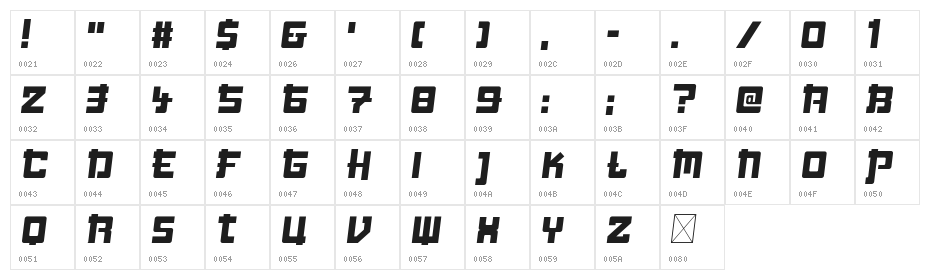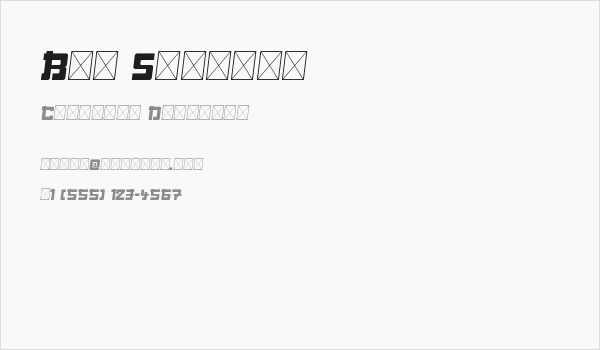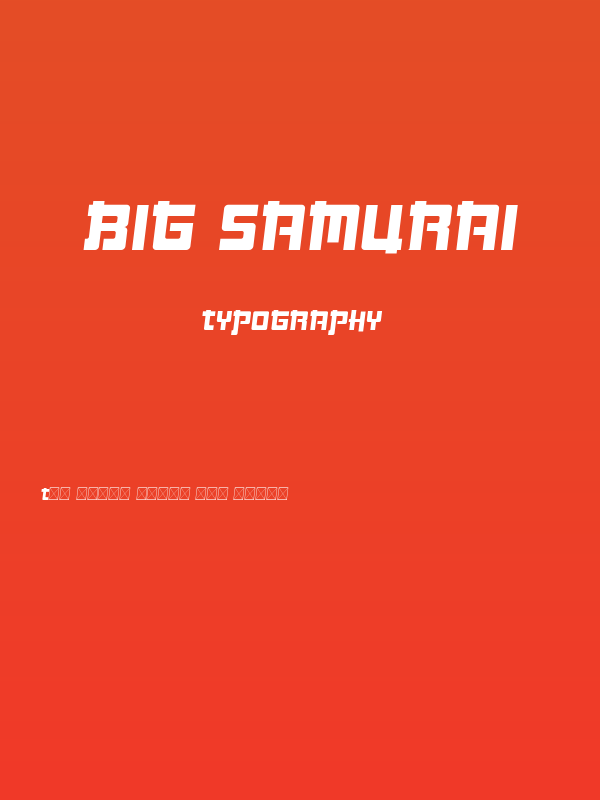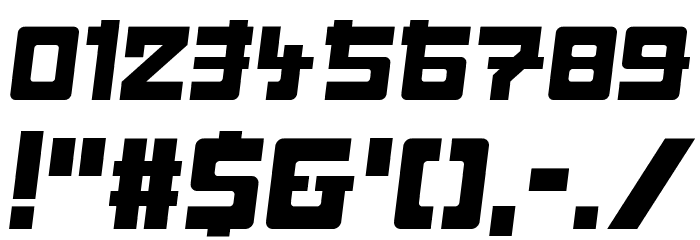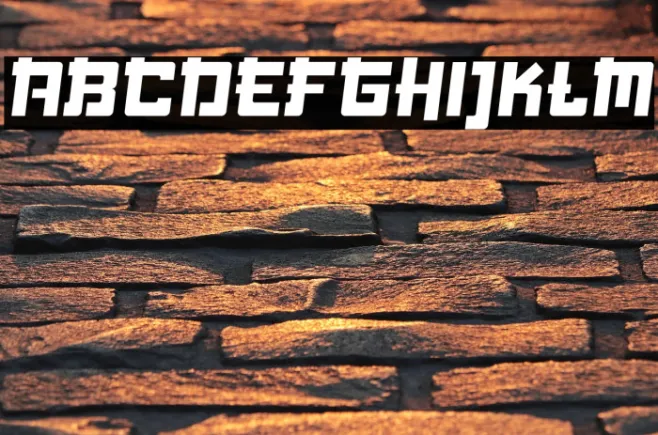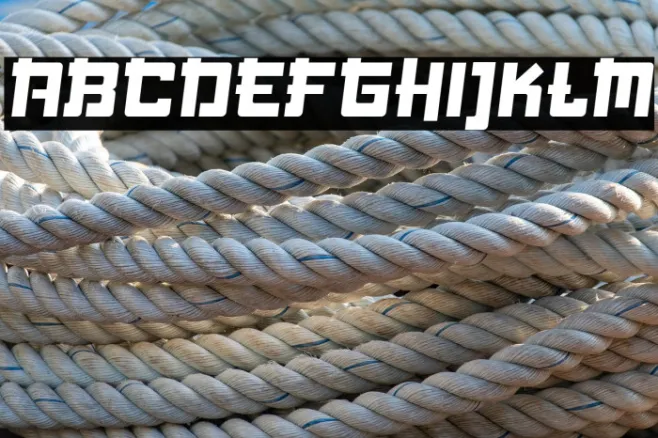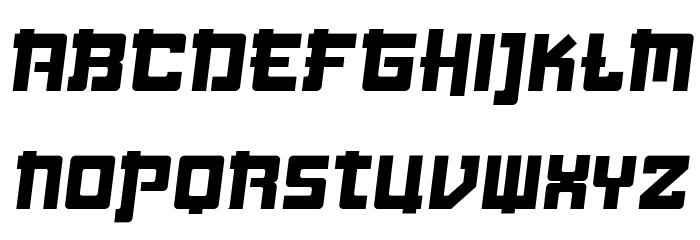
Big Samurai Font
Big Samurai Description
This font features a bold and angular design, reminiscent of traditional Japanese aesthetics with a modern twist. The characters are blocky and geometric, with sharp edges and a slightly condensed appearance. The uppercase and lowercase letters maintain a consistent style, providing a cohesive look. The numerals and special characters are designed to match the overall boldness and angularity, making them stand out prominently. The font's unique style is both eye-catching and versatile, suitable for a variety of design projects that require a strong visual impact.
| Proposed Projects | Ideal for branding, posters, video game graphics, and any project requiring a strong, distinctive typeface. |